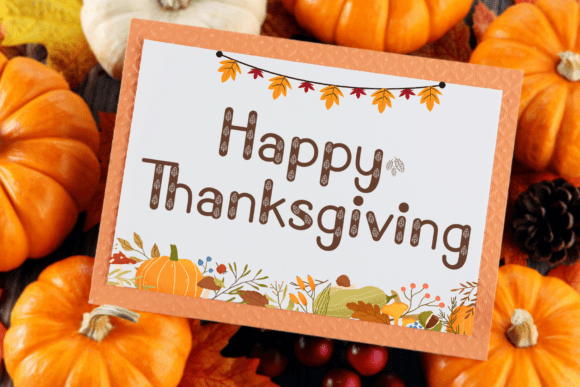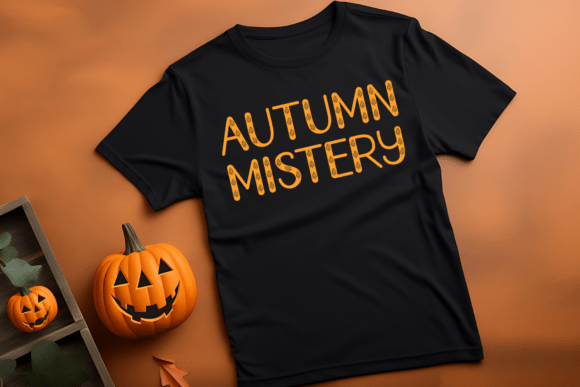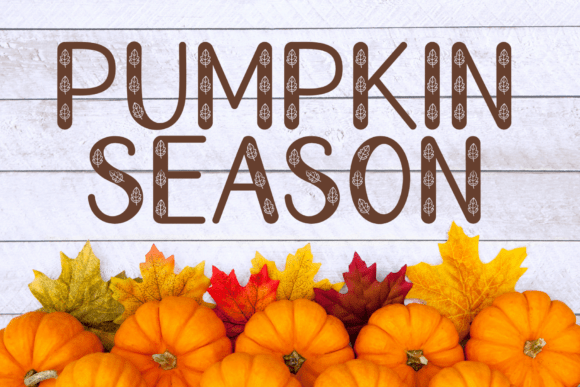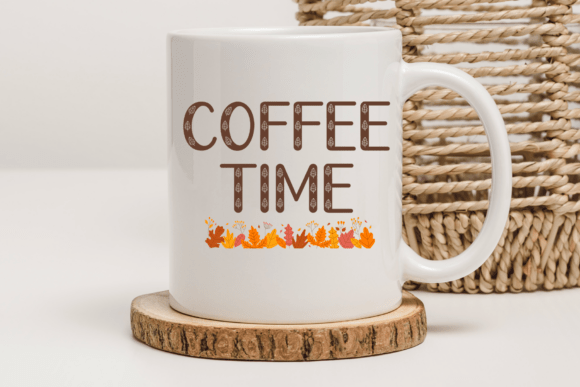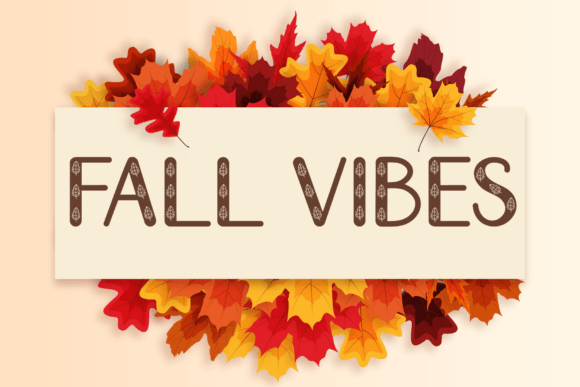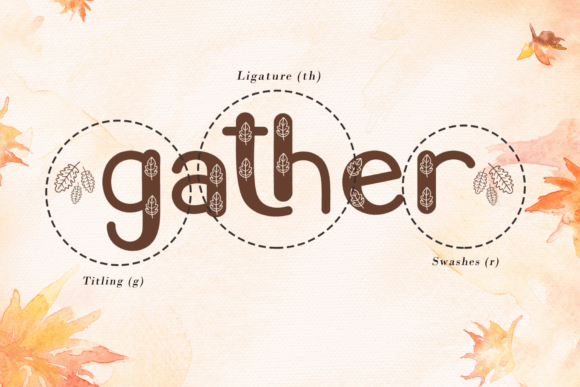
Introducing Autumn Show Font: The Perfect Companion for Your Fall-Inspired Projects
As the leaves begin to change and the air grows crisper, it’s the perfect time to infuse your designs with the warmth and coziness of autumn. Whether you’re crafting posters, social media graphics, or physical products like t-shirts and mugs, the right font can make all the difference. That’s where Autumn Show comes in – a quirky and fun decorative display font designed specifically for fall-inspired projects.
Capture the Essence of Autumn with a Playful Font
Autumn Show is more than just a font – it’s a way to capture the playful energy and coziness of the golden season. With its unique and charming design, this font is perfect for creating eye-catching posters, flyers, banners, and menus that scream fall. Imagine using it to promote a pumpkin patch, a Halloween party, or a Thanksgiving gathering. The playful charm of Autumn Show instantly sets the tone for a fun and festive atmosphere.
Autumn Show is incredibly versatile, making it an excellent addition to any designer’s or crafter’s toolkit. Use it to create:
- Posters and flyers for fall events, such as harvest festivals or Halloween parties
- Social media graphics that grab attention and evoke the warmth of the season
- Physical products like t-shirts, mugs, tote bags, or seasonal decor
- Menus for fall-themed restaurants or cafes
- Banners and signs for pumpkin patches or apple orchards
Pair with Autumn Colors for Maximum Impact
To take your designs to the next level, pair Autumn Show with rich autumn colors, such as:
- Rich oranges
- Warm browns
- Soft yellows
These earthy tones will complement the playful charm of the font, bringing your designs to life with seasonal personality.
PUA-Encoded for Effortless Use
Autumn Show font is PUA-encoded, ensuring effortless use in your designs. This means you can easily access and use the font’s extensive character set, including:
- Unique ligatures
- Alternates
- Swashes
Why Choose Autumn Show Font?
Autumn Show font offers a unique combination of playfulness, charm, and versatility, making it the perfect choice for designers and crafters looking to create stunning fall-inspired projects. With its:
- Quirky and fun design
- PUA-encoded character set
- Endless possibilities for creative applications
you can’t go wrong.
Autumn Show font is the perfect companion for your fall-inspired projects. Its playful charm, versatility, and PUA-encoded character set make it an excellent choice for designers and crafters looking to create eye-catching and festive designs. So why wait? Celebrate the golden season with Autumn Show font and make your projects shine this autumn!